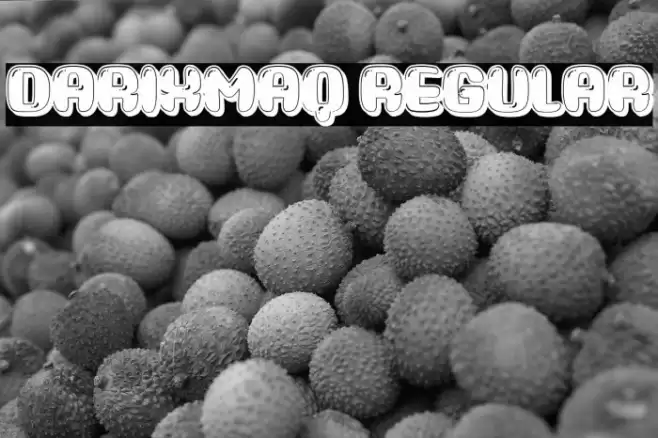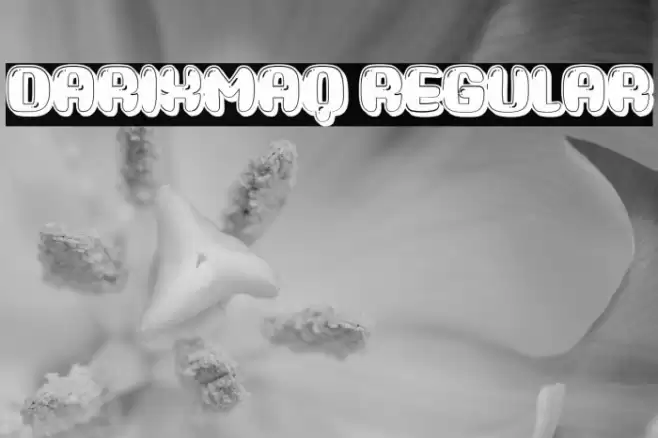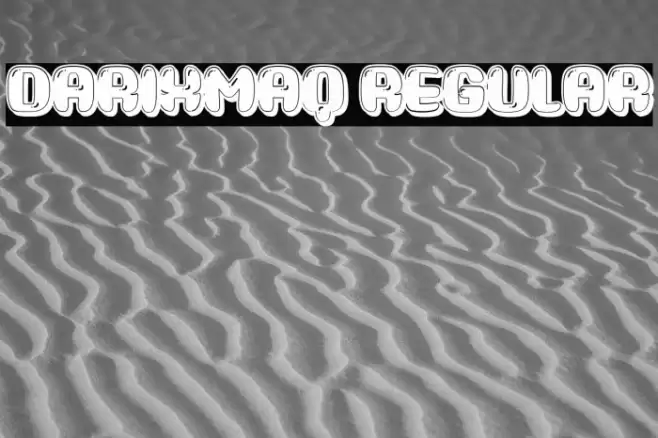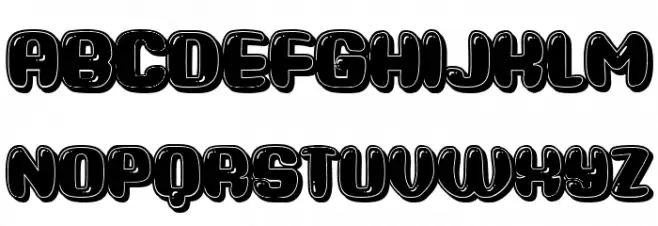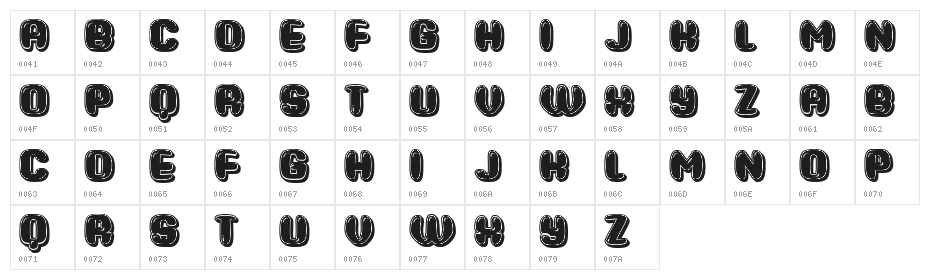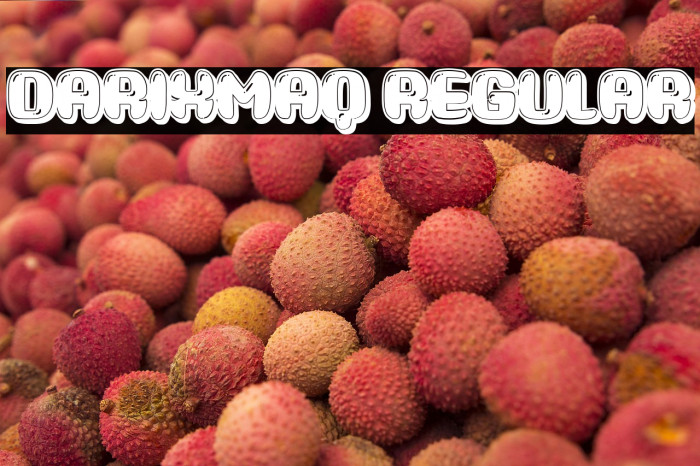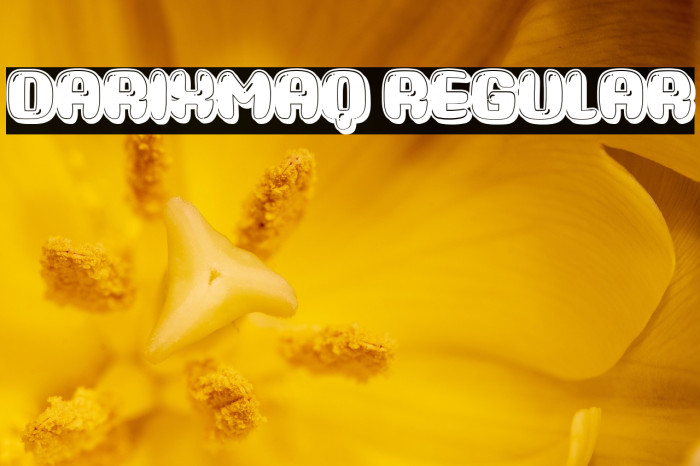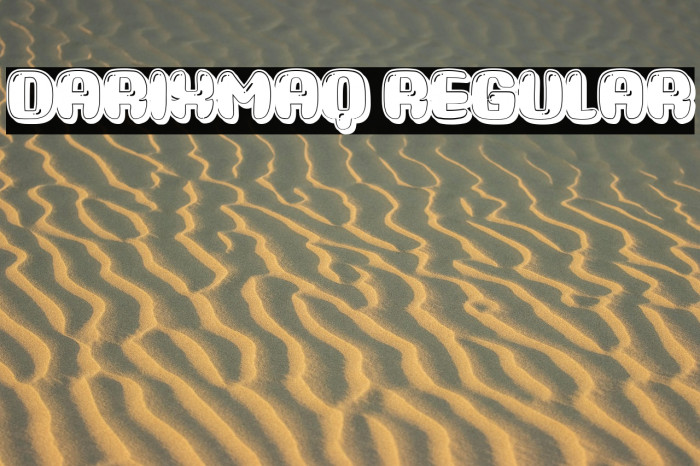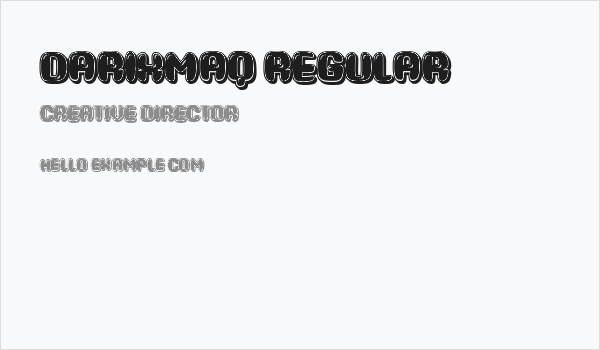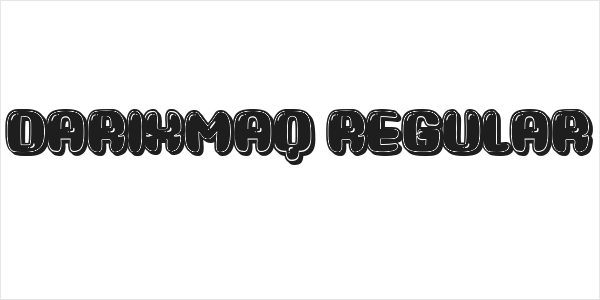
Darixmaq Regular Font
Darixmaq Regular Description
This font features bold, rounded characters with a playful and dynamic appearance. The letters are outlined with a thick black border, giving them a three-dimensional effect. The interior of each character is filled with a solid color, enhancing the boldness and visibility. The overall style is reminiscent of graffiti or street art, making it ideal for projects that require a fun and energetic vibe. The characters are evenly spaced, ensuring readability while maintaining a compact look. This font is perfect for eye-catching headlines, posters, and creative designs that aim to capture attention.
A bold, rounded font with a playful, graffiti-like style from Uncategorized fonts.
- Proposed Projects: Ideal for posters, headlines, street art designs, and creative branding projects.
- Use Case: Headlines, Posters, Creative Designs